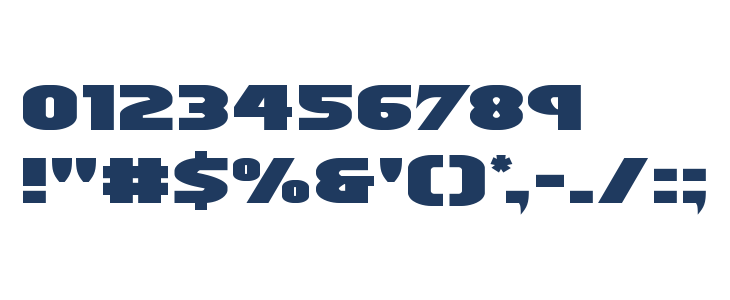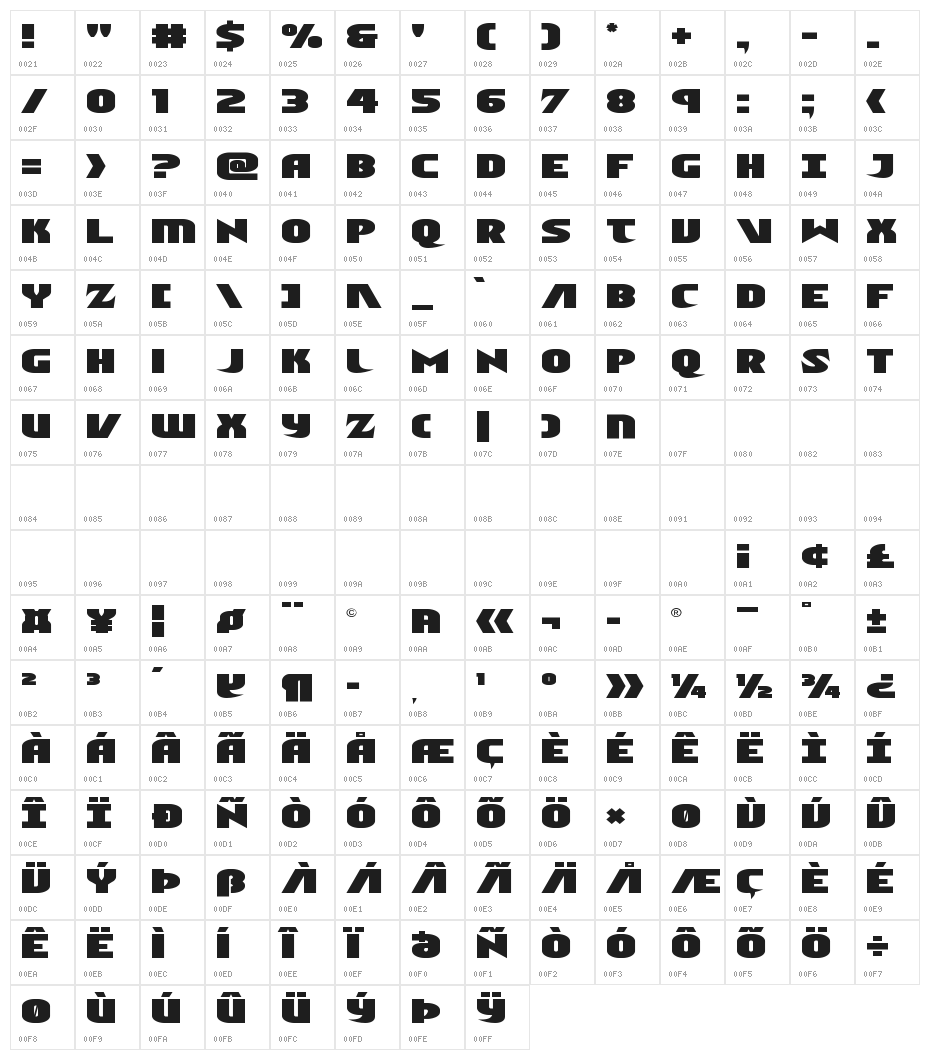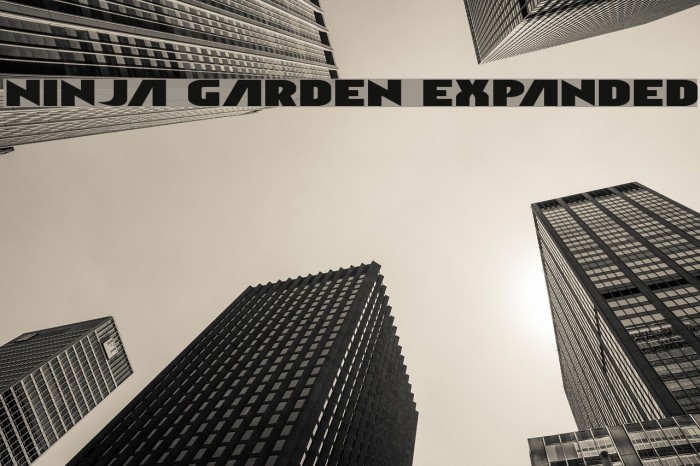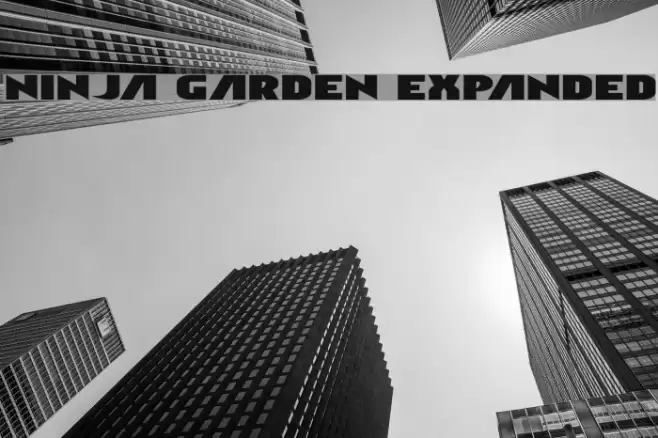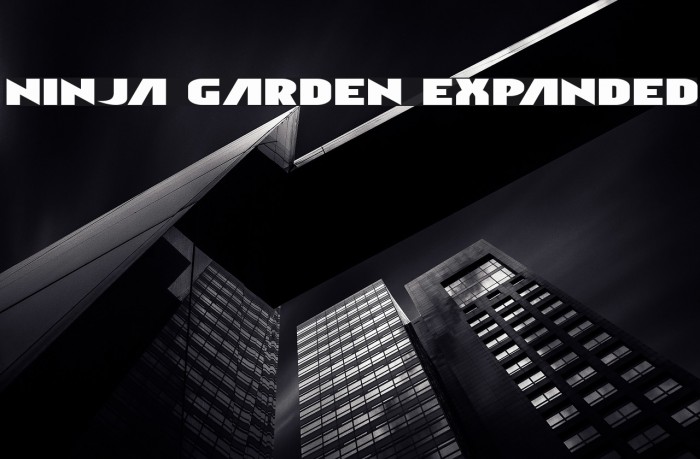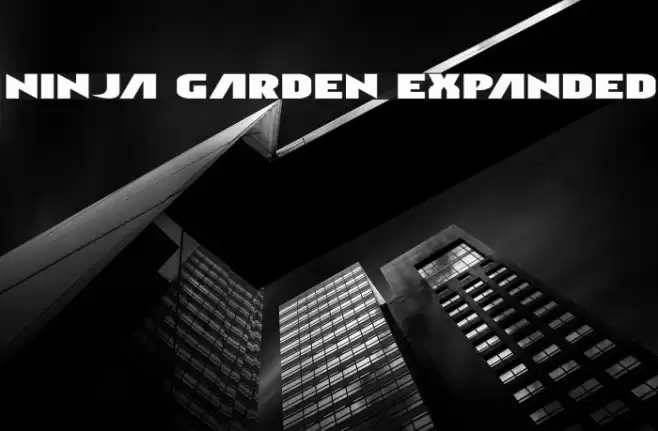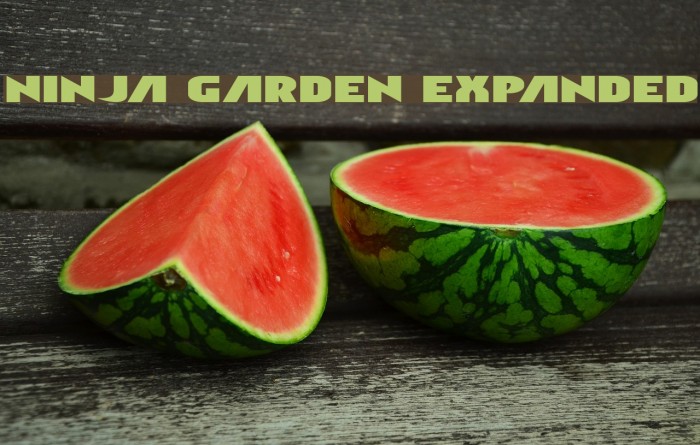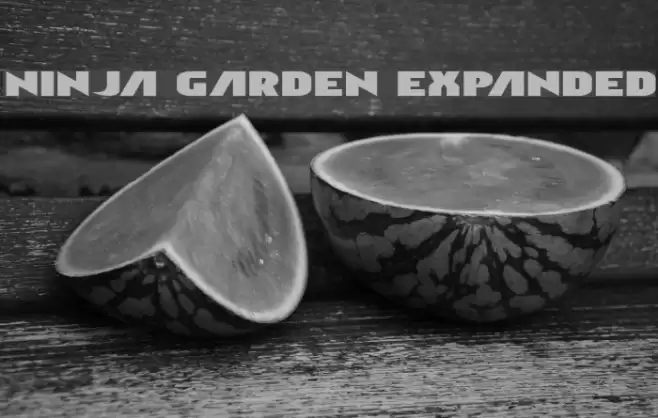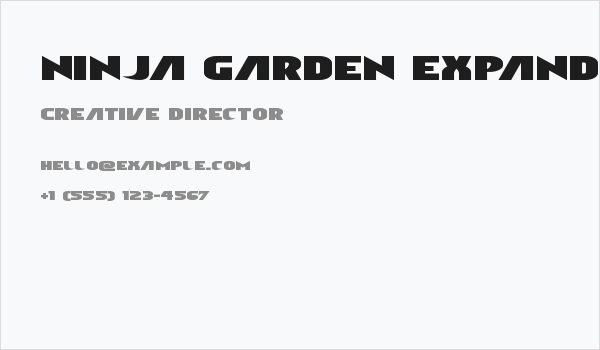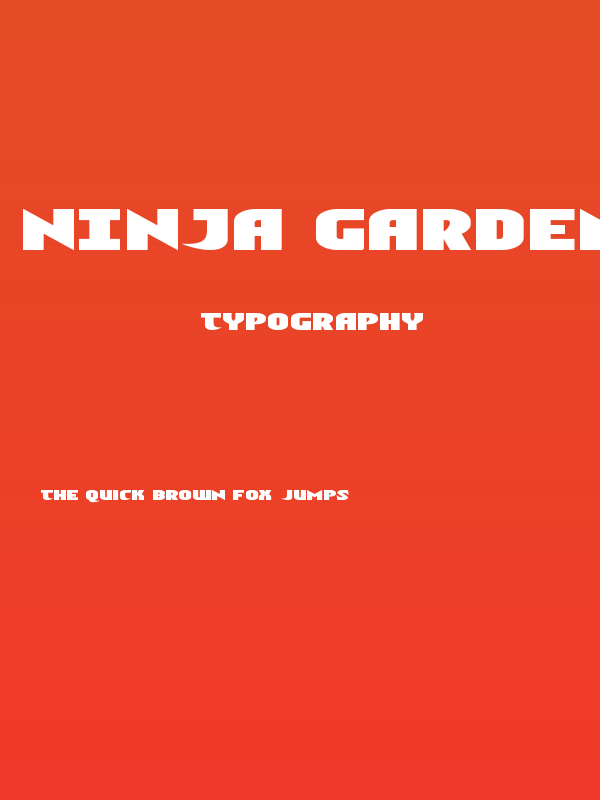
Ninja Garden Expanded Font
Ninja Garden Expanded Description
This font features a bold and dynamic style with a strong presence. The characters are wide and have a distinct, angular design that gives them a modern and edgy appearance. The uppercase letters are particularly striking, with sharp edges and a sense of movement. The numbers and special characters maintain this bold aesthetic, ensuring consistency across all glyphs. The font's unique style makes it stand out, making it suitable for attention-grabbing designs.